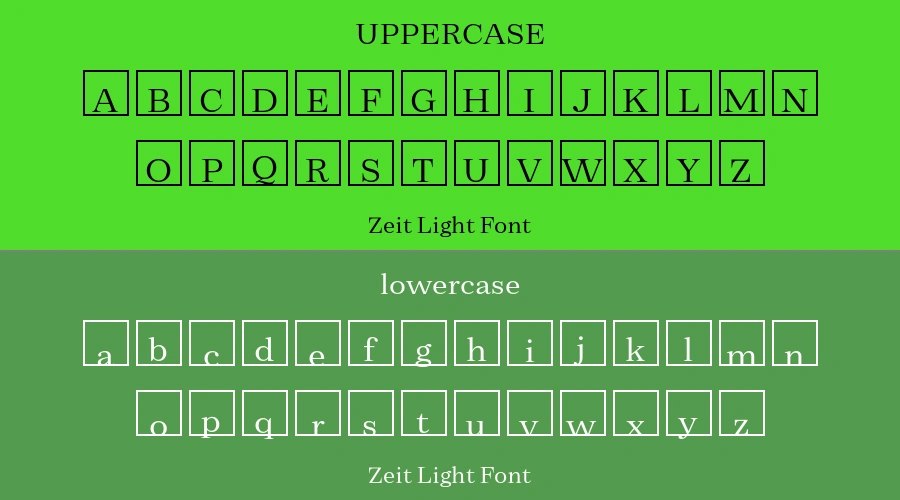
About Zeit Light Font
Zeit Light Font stands out for its distinctive combination of harmonic curves and technical accuracy. Ideal for advertising campaigns, it provides the reliability and aesthetic refinement that professional projects demand. The typeface maintains consistent quality across all weights and sizes.
Key features include refined wedge serifs and practical mid-word alternates, enhancing typographic expression. In creative titles applications, Zeit Light Font demonstrates exceptional footnote clarity. The stem weight and regulatory compliance contribute to its distinctive character and professional appeal.